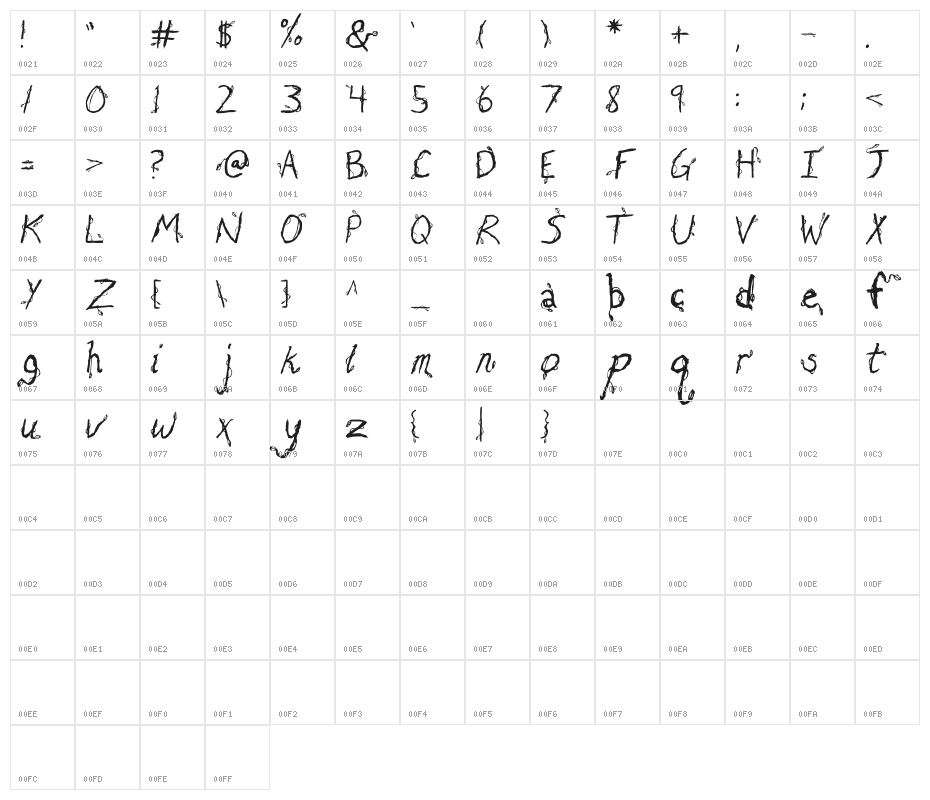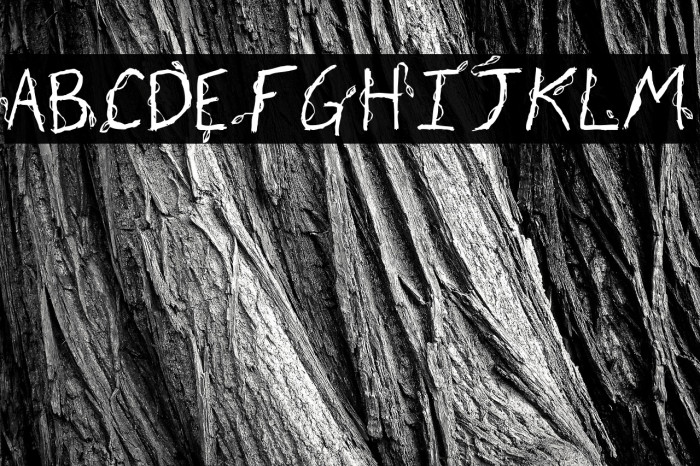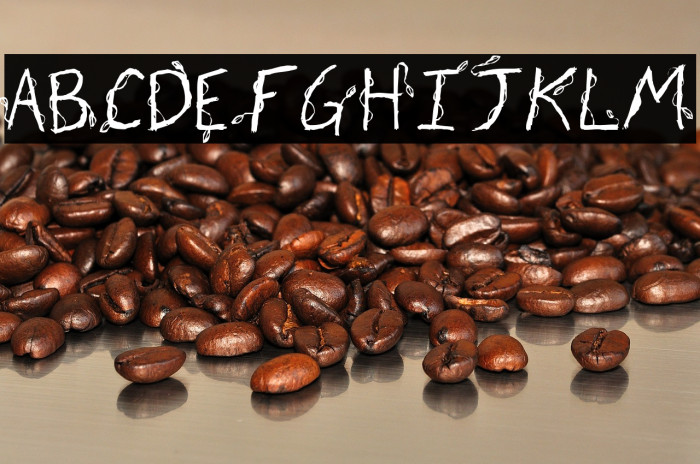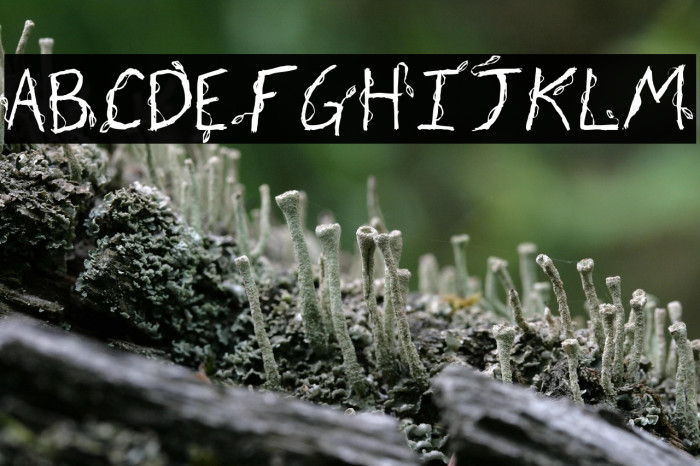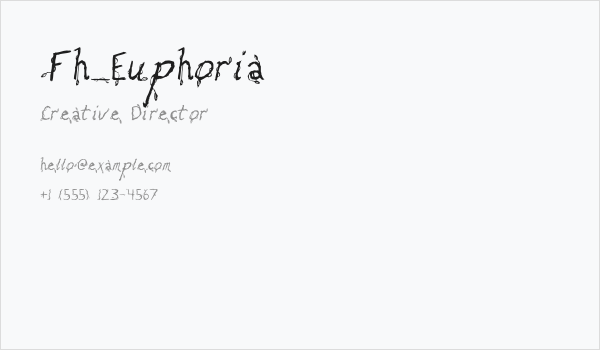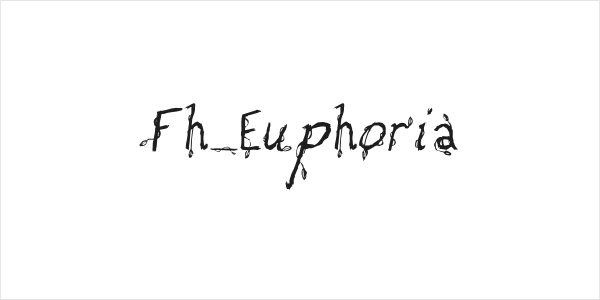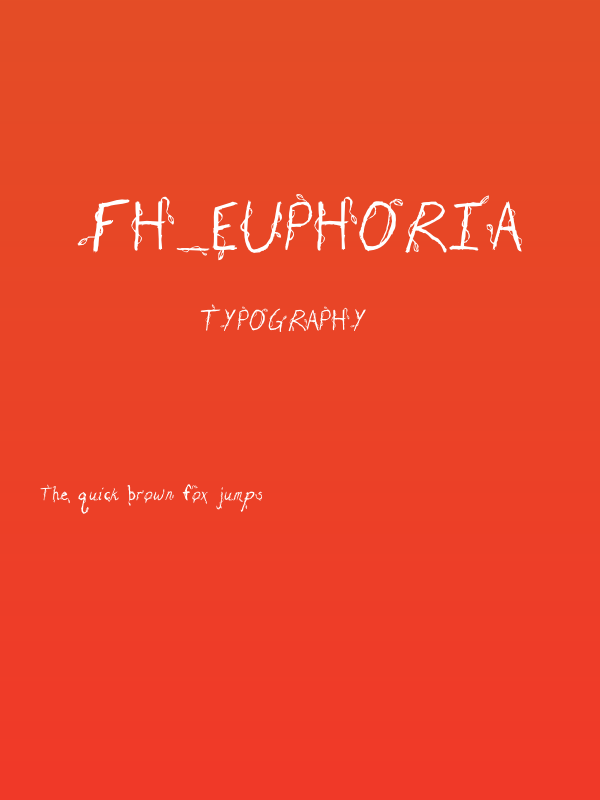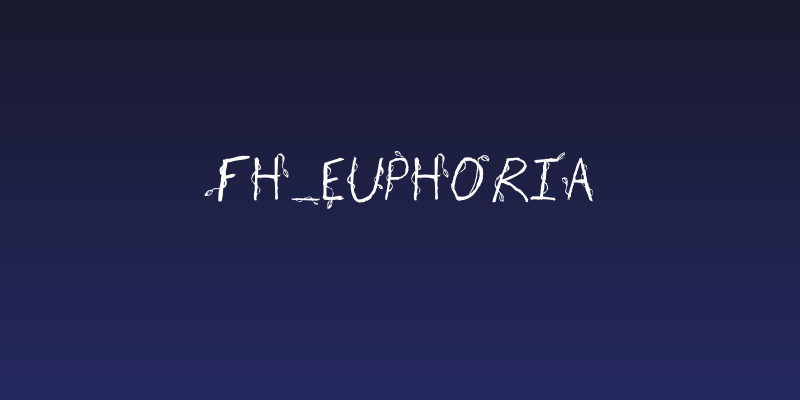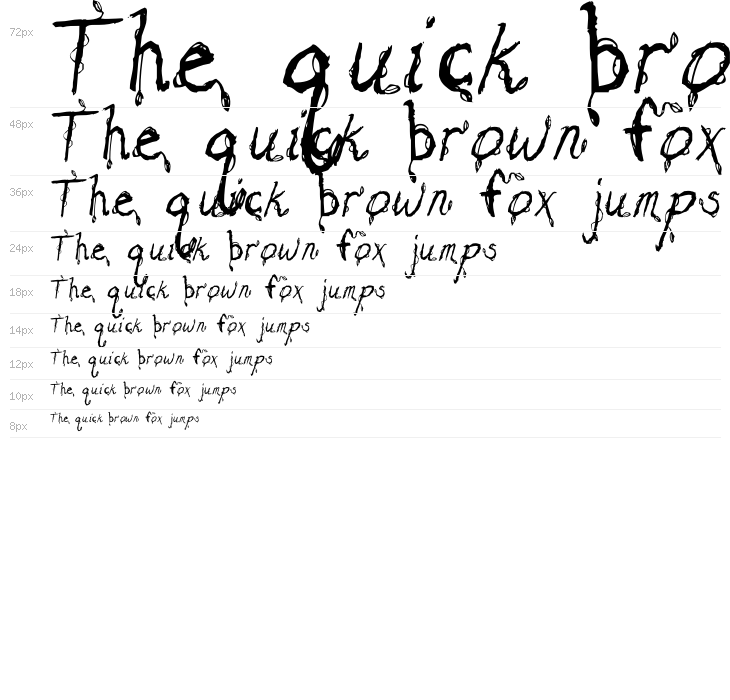
Fh_Euphoria Font
Fh_Euphoria Description
This font exhibits a whimsical and organic style, characterized by its vine-like embellishments that wrap around each letter. The strokes are uneven, giving it a hand-drawn appearance, while the decorative elements add a playful and artistic touch. The uppercase and lowercase letters maintain a consistent theme, with each character uniquely adorned. Numbers and special characters follow the same design principles, ensuring a cohesive look across all glyphs. The font's intricate details make it stand out, ideal for projects that require a creative and natural aesthetic.
| Proposed Projects | Perfect for nature-themed designs, artistic posters, children's book covers, and creative branding projects. |